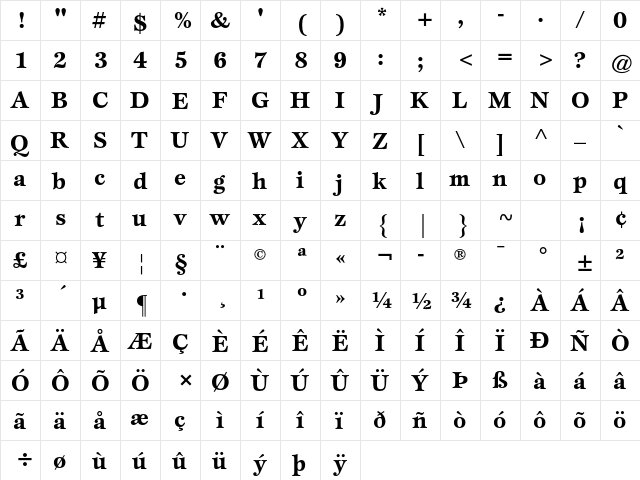
ITC Esprit Std Bold
| Designer | Jovica Veljovic |
Design Context for ITC Esprit Std Typeface
ITC Esprit Std is a composed and adaptable typeface that performs quietly and consistently across a wide range of design contexts. Its bold stroke weight gives it real presence on the page.